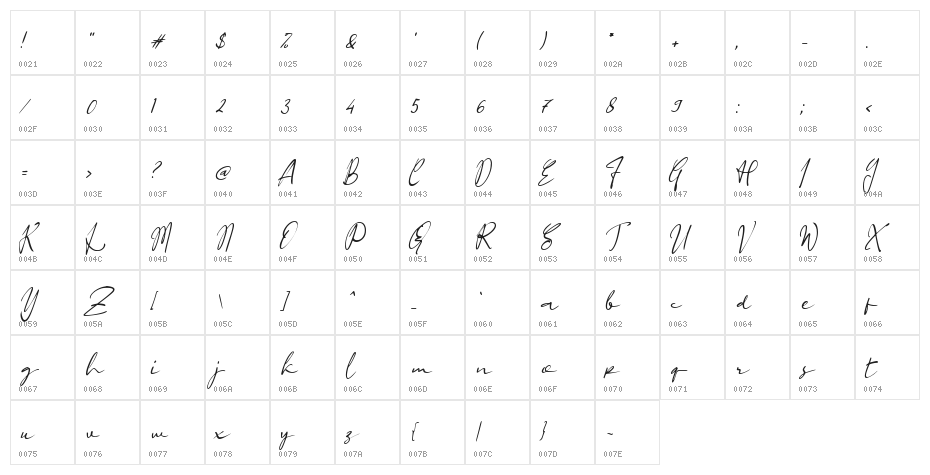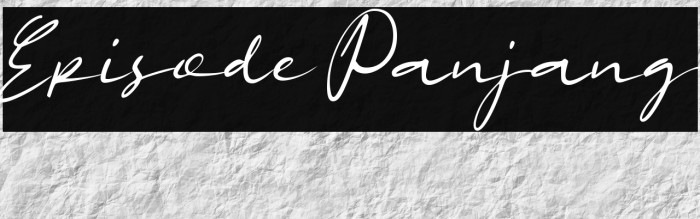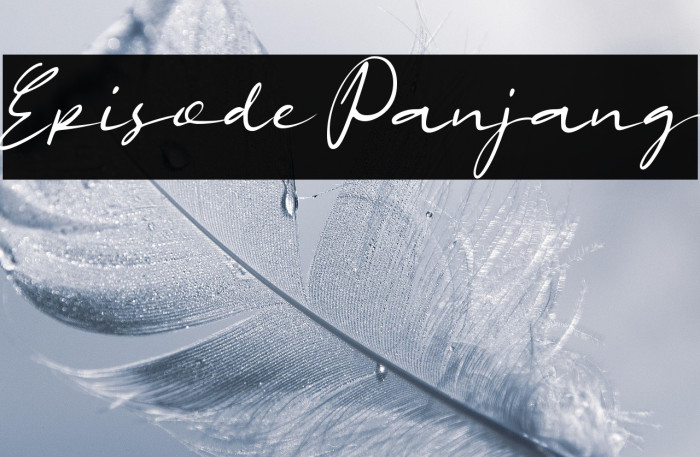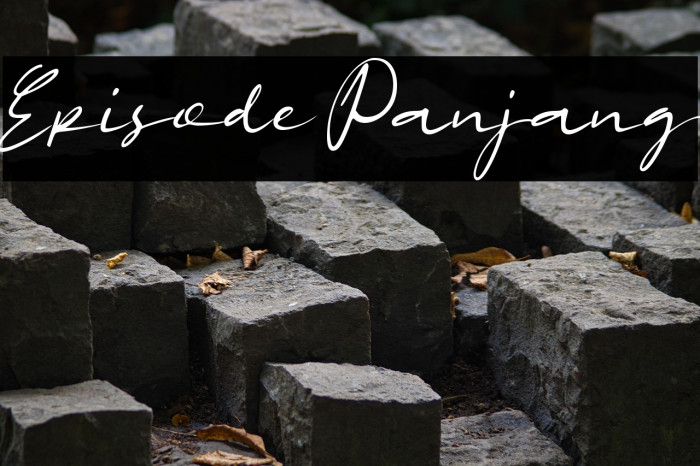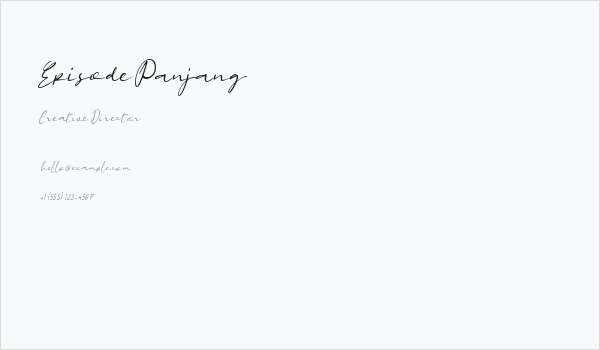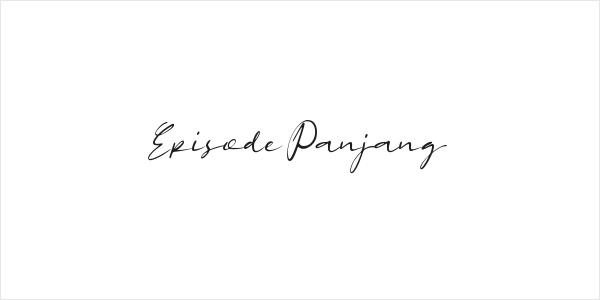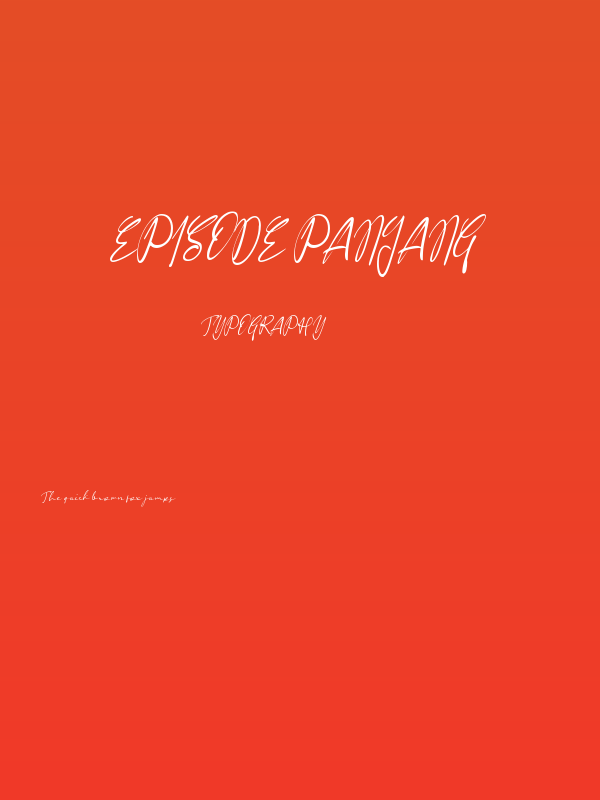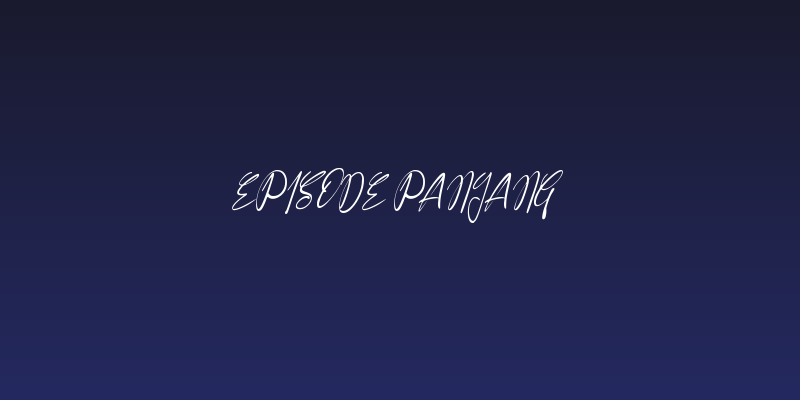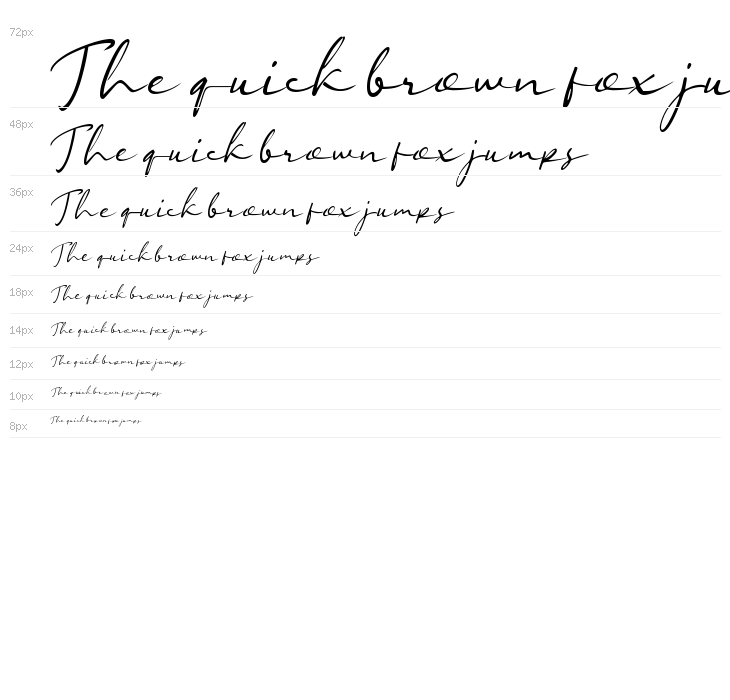
Episode Panjang Font
Episode Panjang Description
This font features an elegant and flowing script style, characterized by its smooth, cursive strokes and a natural handwritten appearance. The uppercase letters are bold and slightly slanted, giving a dynamic and expressive feel, while the lowercase letters maintain a consistent fluidity, enhancing readability. The numerals and special characters are crafted with the same attention to detail, ensuring a cohesive look across all elements. The font's design is both sophisticated and approachable, making it suitable for a variety of creative applications.
Overall StyleElegant
Use CaseLogos, Invitations, Personal stationery
Proposed ProjectsIdeal for wedding invitations, greeting cards, branding, and personal stationery.